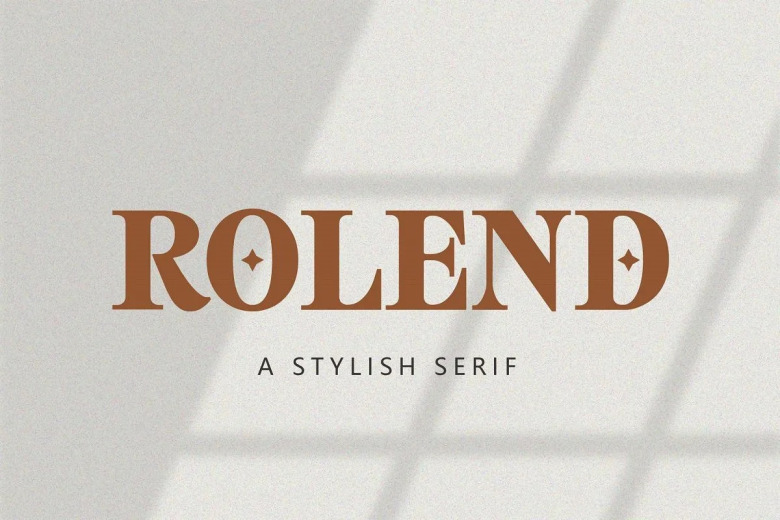
Rolend Font
Rolend is a Modern Stylish Serif Font. Can be used for various purposes. such as the title, signature, logo, correspondence, wedding invitations, letterheads, signage, labels, newsletters, posters, badges, etc.
Rolend Serif Font